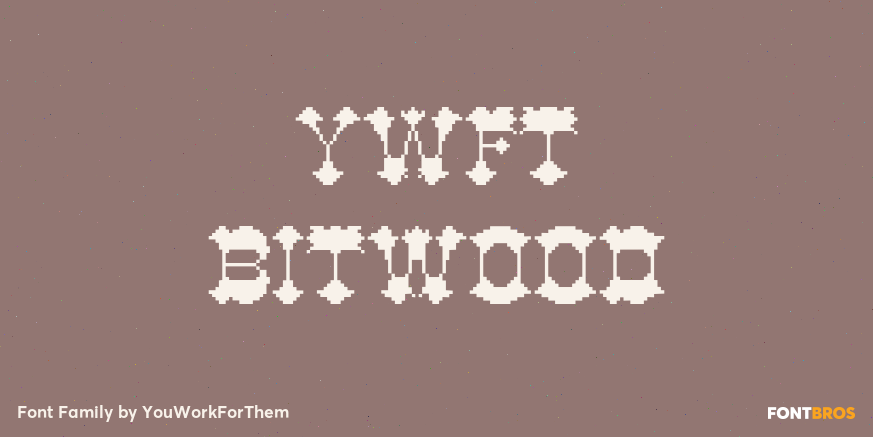
YWFT Bitwood
About YWFT Bitwood
If Pac Man was programmed by Sergio Leone, YWFT Bitwood would provide the commentary. One-of-a-kind, obscure, and sometimes downright obscene, YWFT Bitwood is a unique mashup of old-west saloon type and modern-day game console screens. It takes the idea…